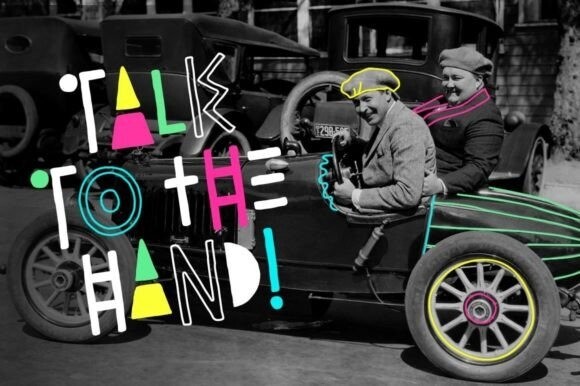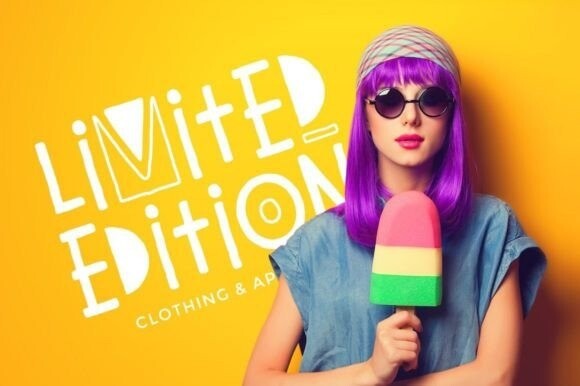
Totally Tubular Font
Totally Tubular Font is an incredibly fun, hand-drawn retro font that comes with an outline version to mix and match. No matter the topic, this font will be an incredible asset to your fonts’ library, as it has the potential to elevate any creation.